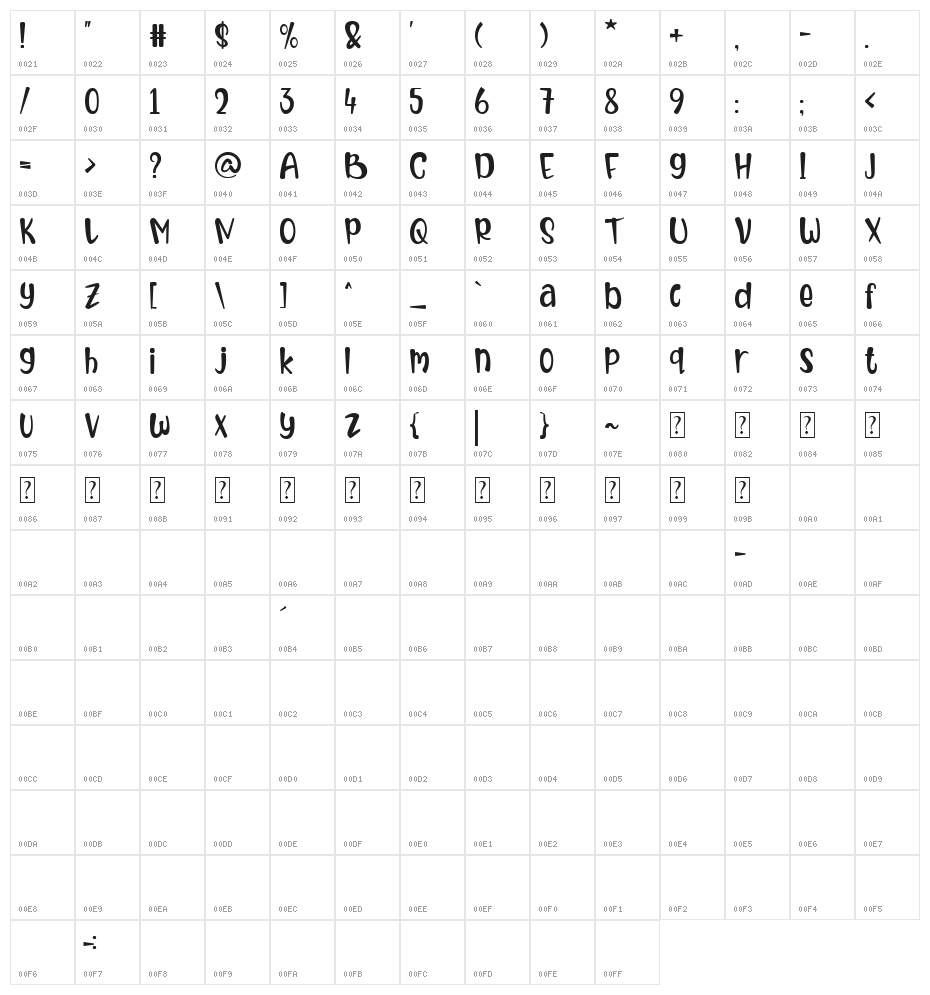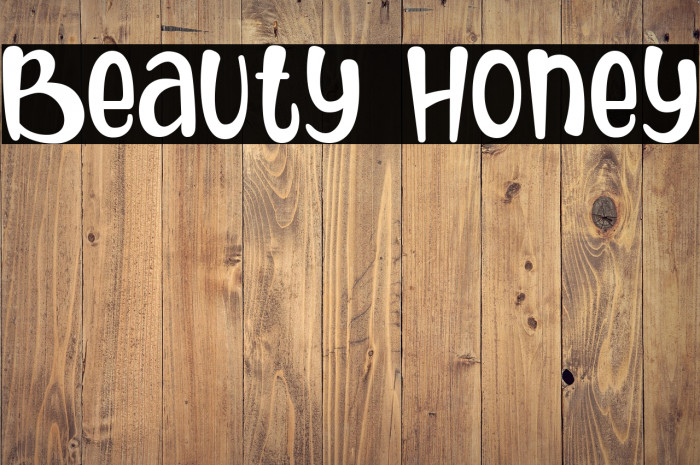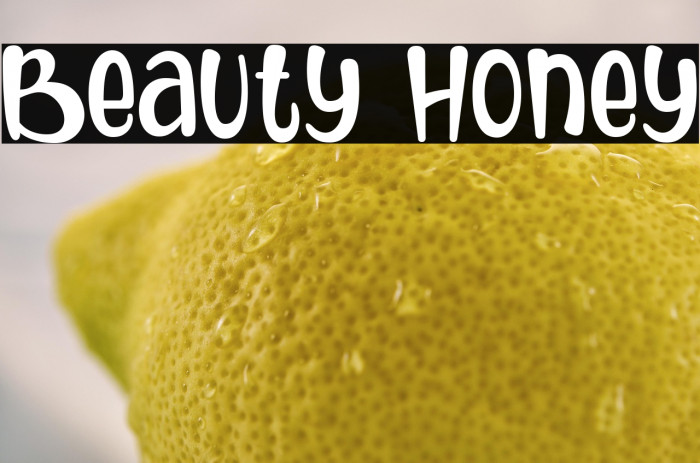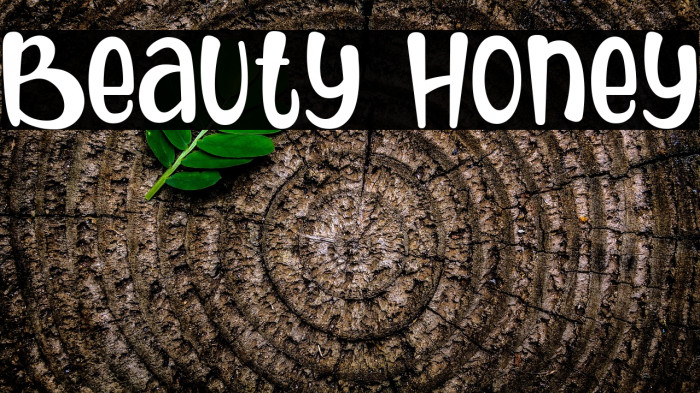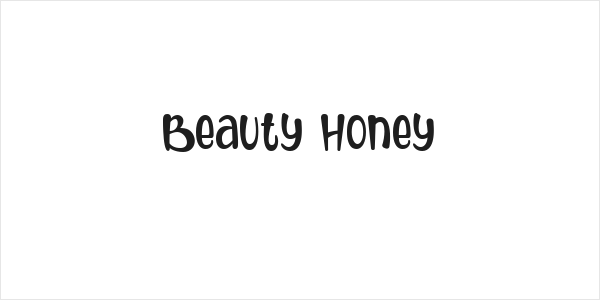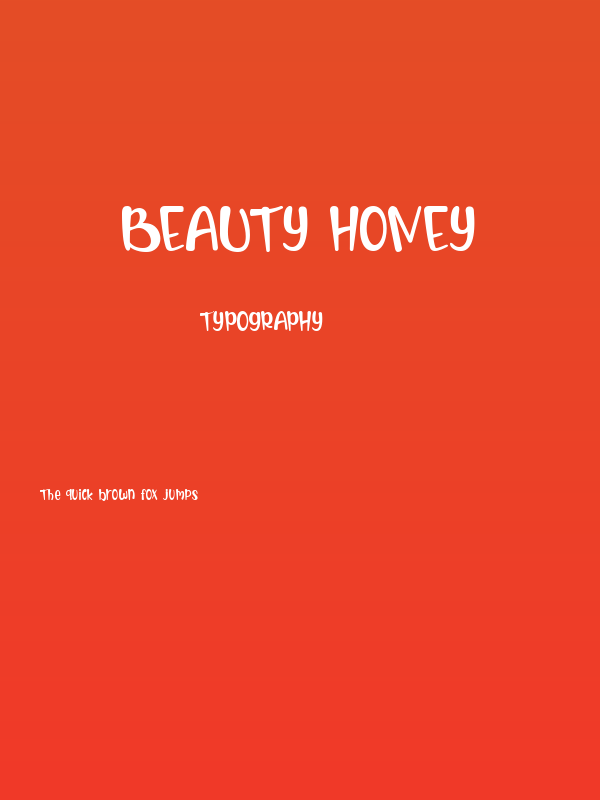
Beauty Honey Font
Beauty Honey Description
This playful and whimsical font features a handwritten style with bold, rounded characters. The letters have a smooth, flowing appearance that adds a sense of fun and creativity. The uppercase and lowercase letters maintain a consistent style, with slightly exaggerated curves and a friendly demeanor. Numbers and special characters are designed to match the overall playful aesthetic, making them ideal for projects that require a touch of personality and charm. The font's unique style makes it stand out, while still being legible and versatile for various design needs.
| Use Case | Logos, Posters, Greeting Cards |
| Proposed Projects | Ideal for children's books, playful branding, greeting cards, and creative posters. |